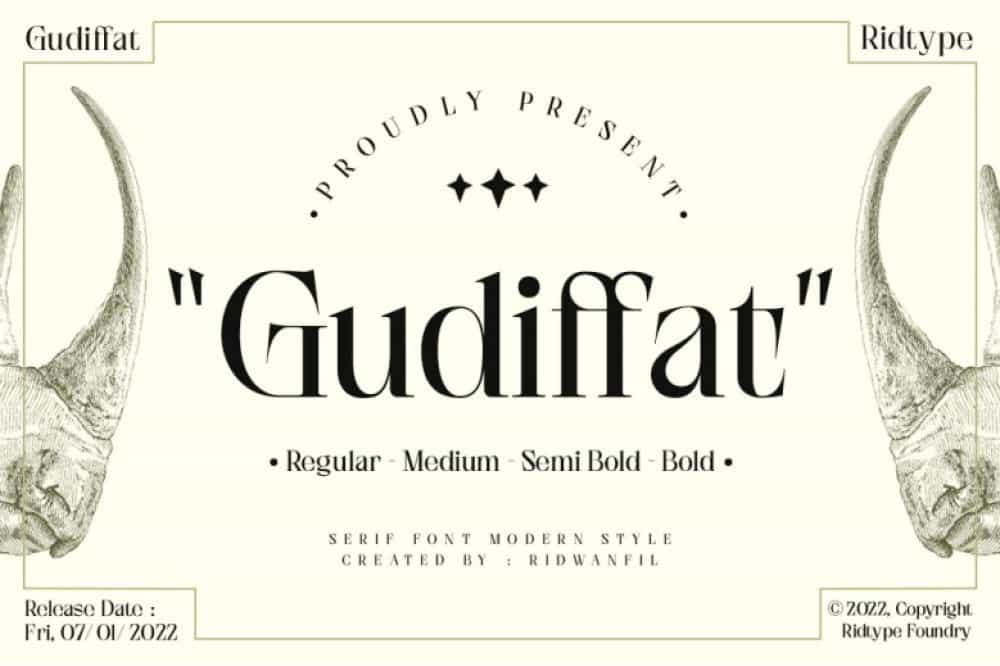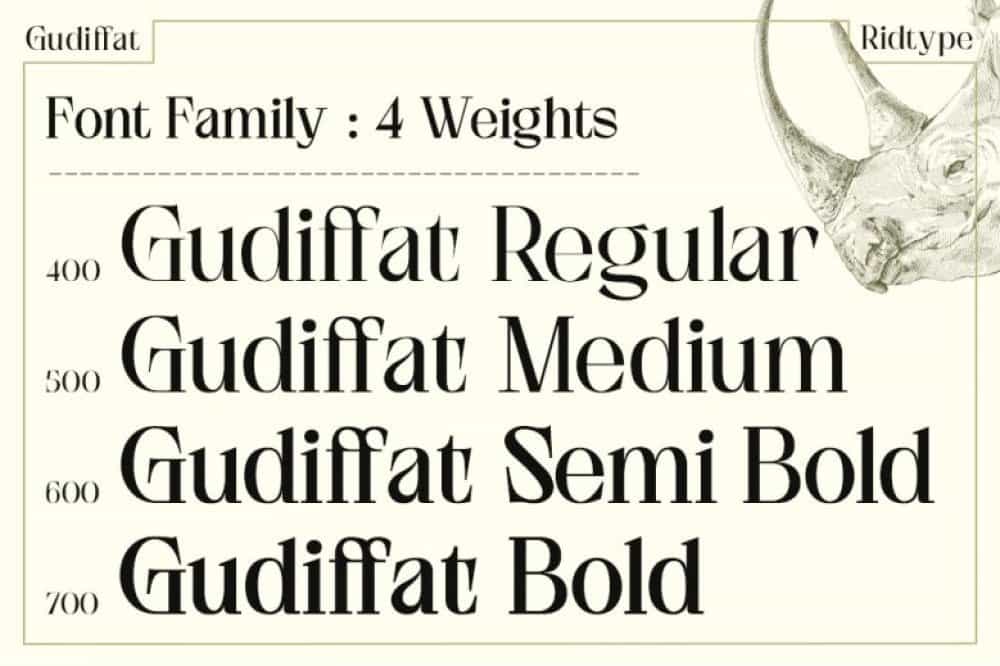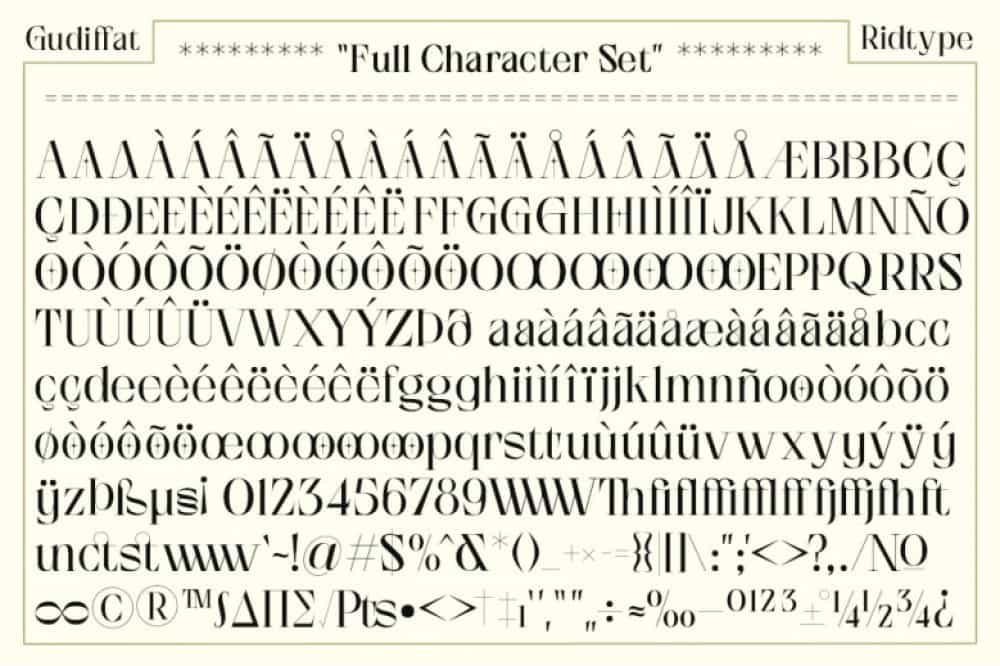
Gudiffat Serif font was designed with luxury lifestyle and intellectual brilliance in mind, featuring numerous alternative ligatures (such as uppercase to lowercase letters) as well as character symbols that can be altered according to needs.